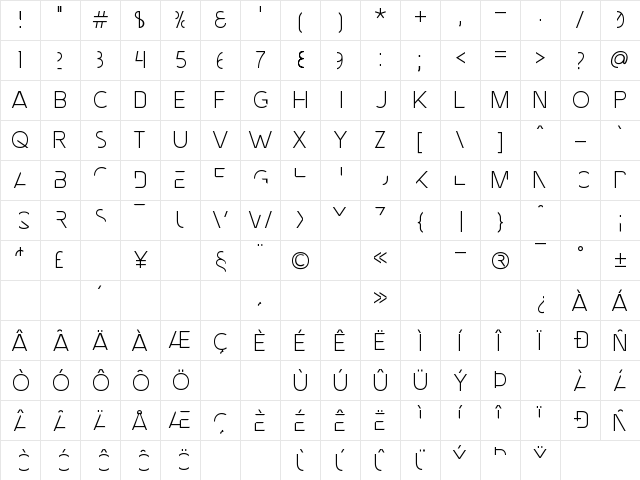
MNML FNT Regular
| Designer | Michael Muranaka |
Design Context for MNML FNT Typeface
MNML FNT is a composed and adaptable typeface that performs quietly and consistently across a wide range of design contexts.